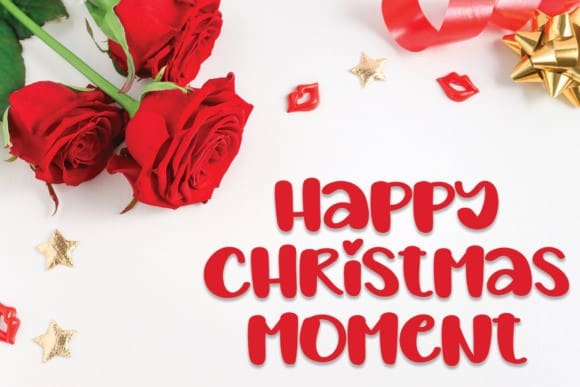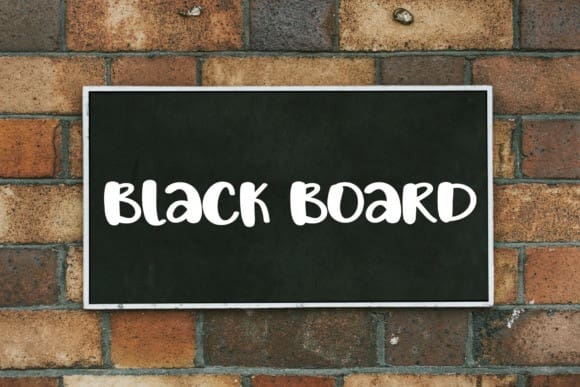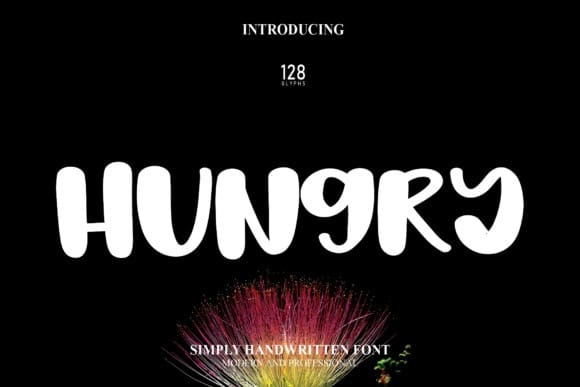
Hungry Display Font
Hungry Display Font, is a bold, and thick font that will help you create fun and playful designs and will look good on a variety of branding and packaging projects